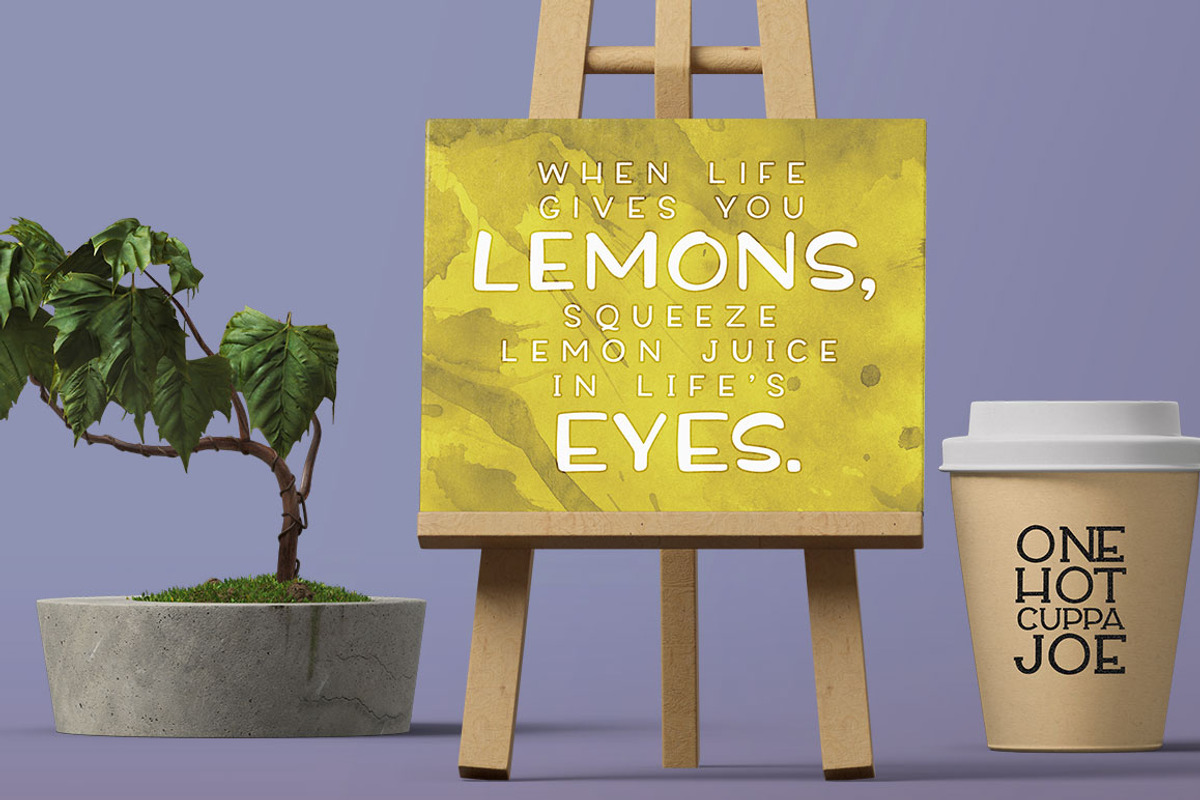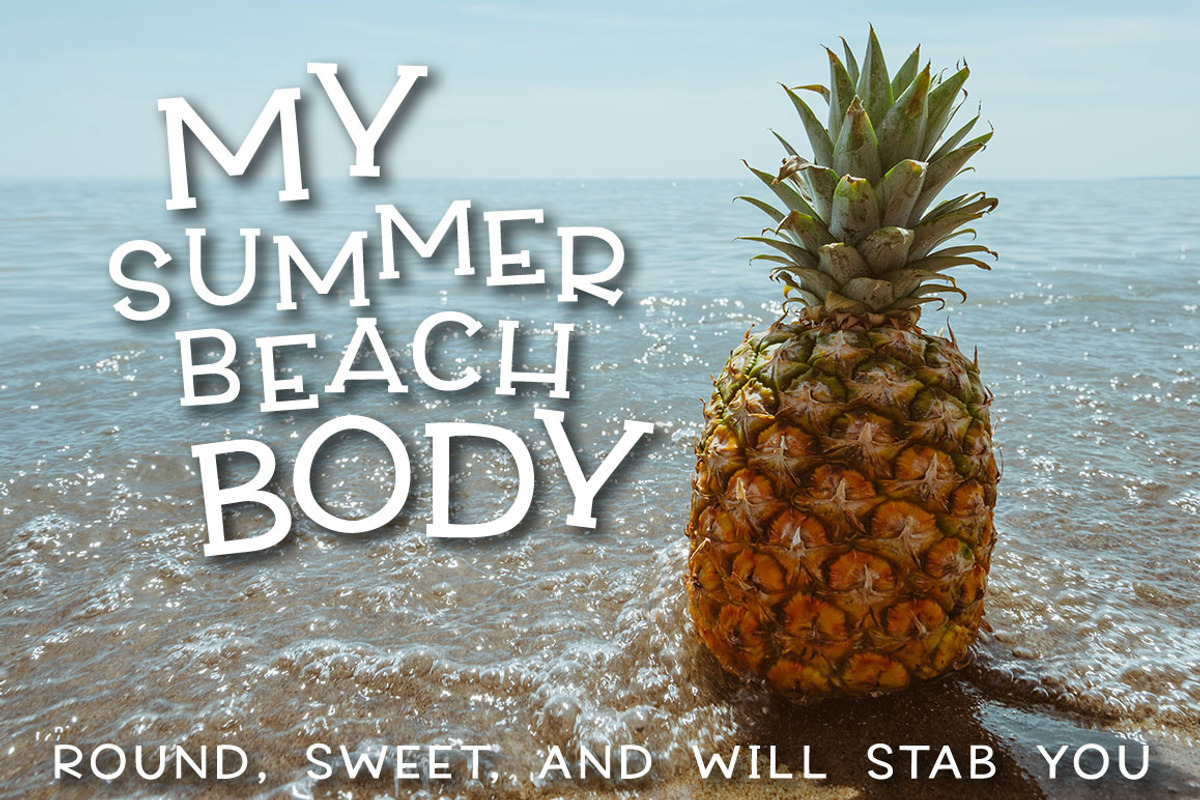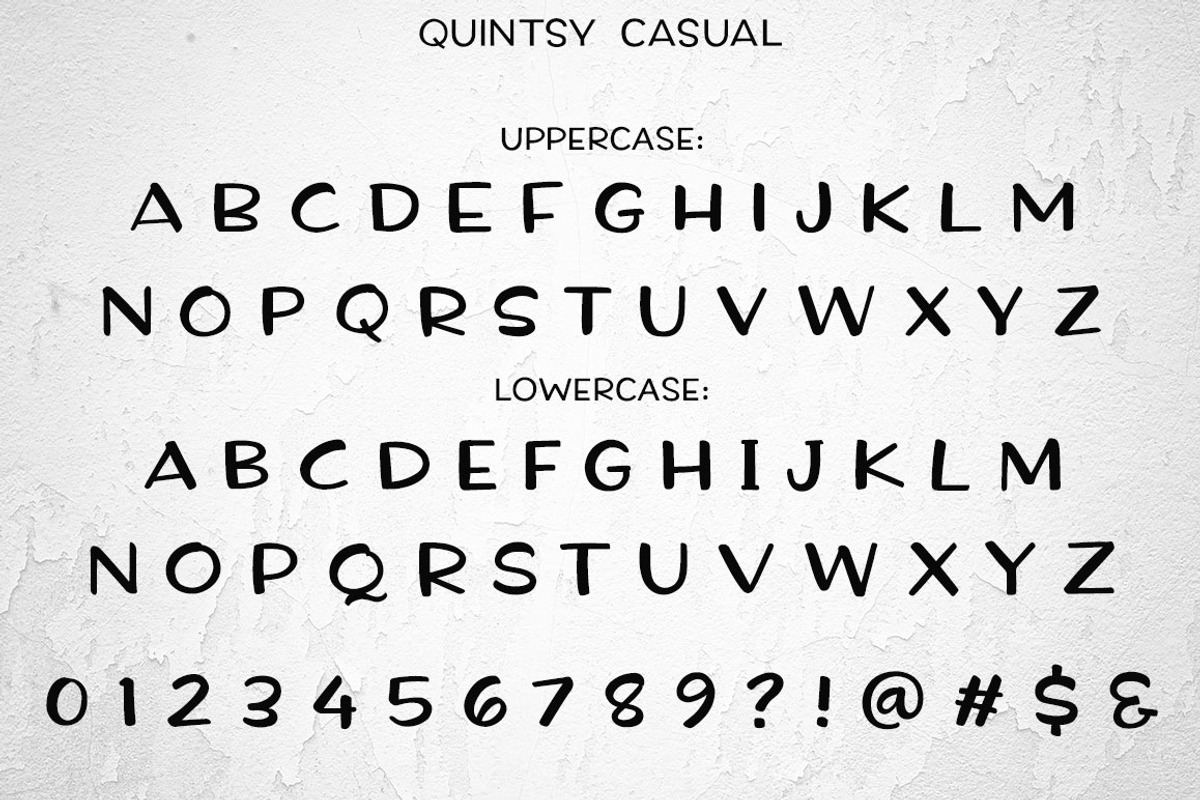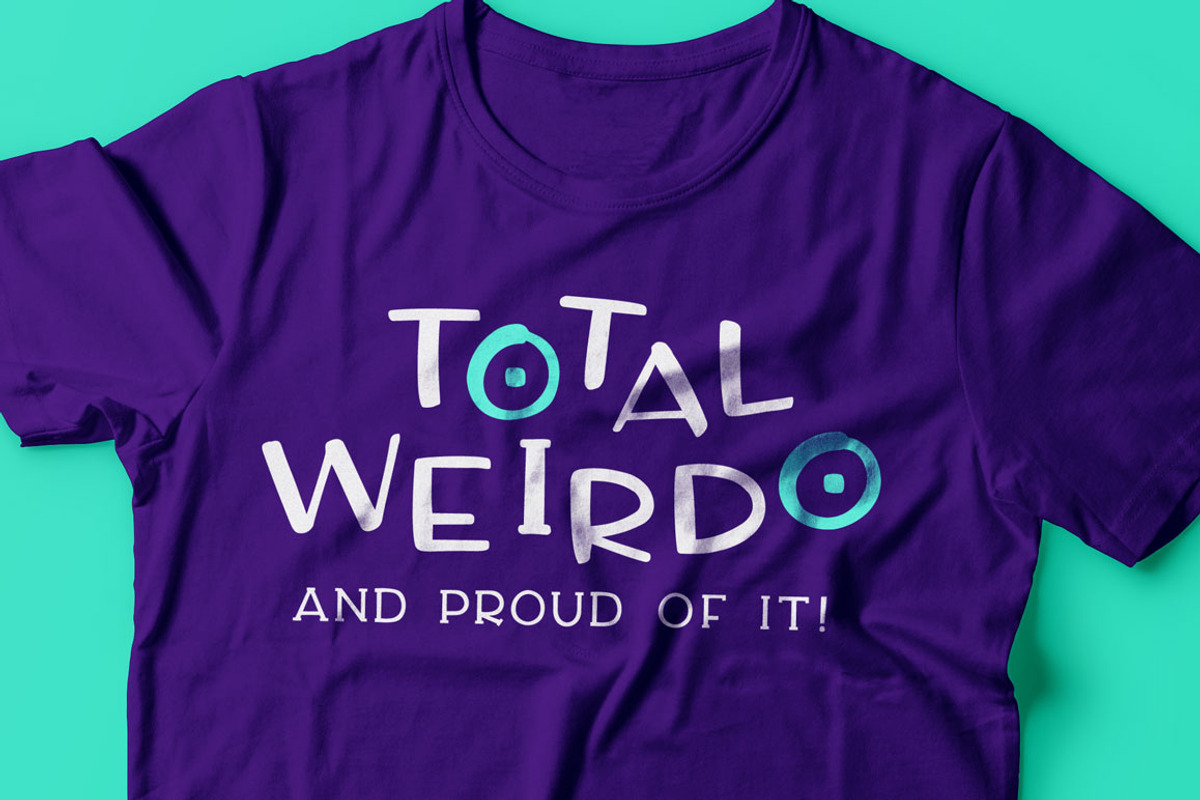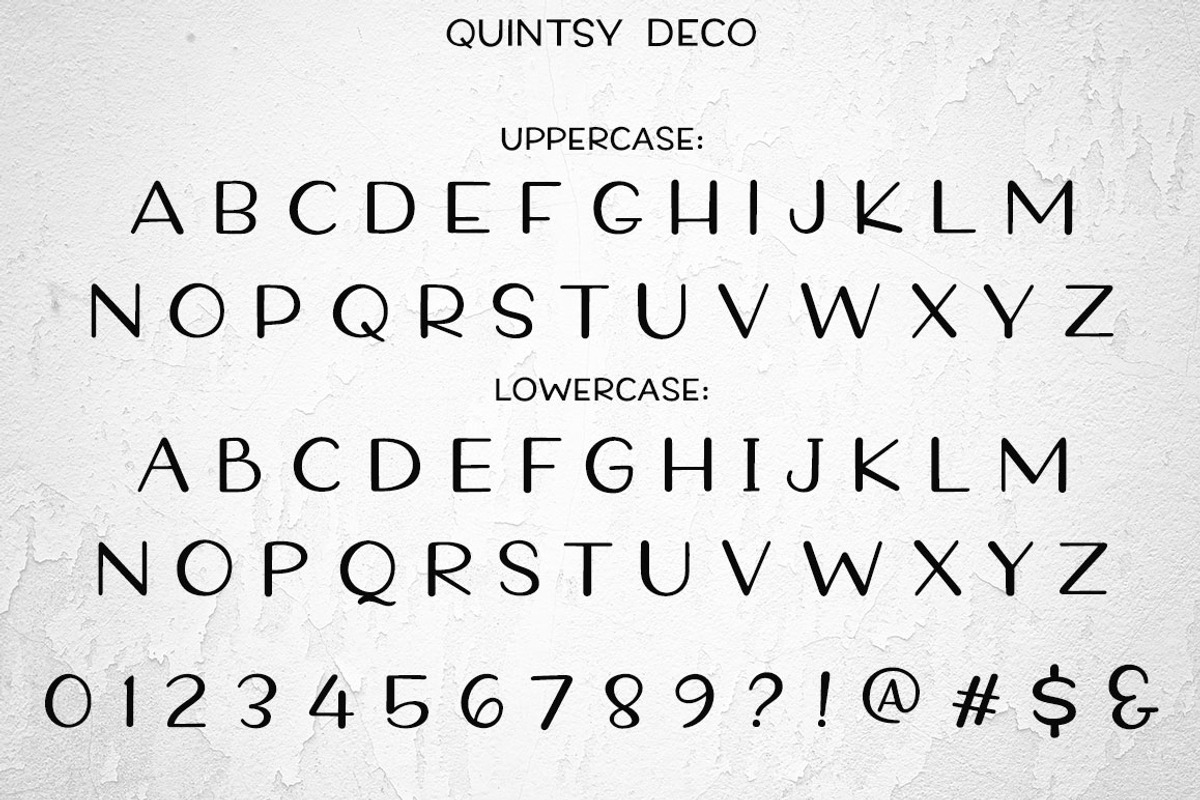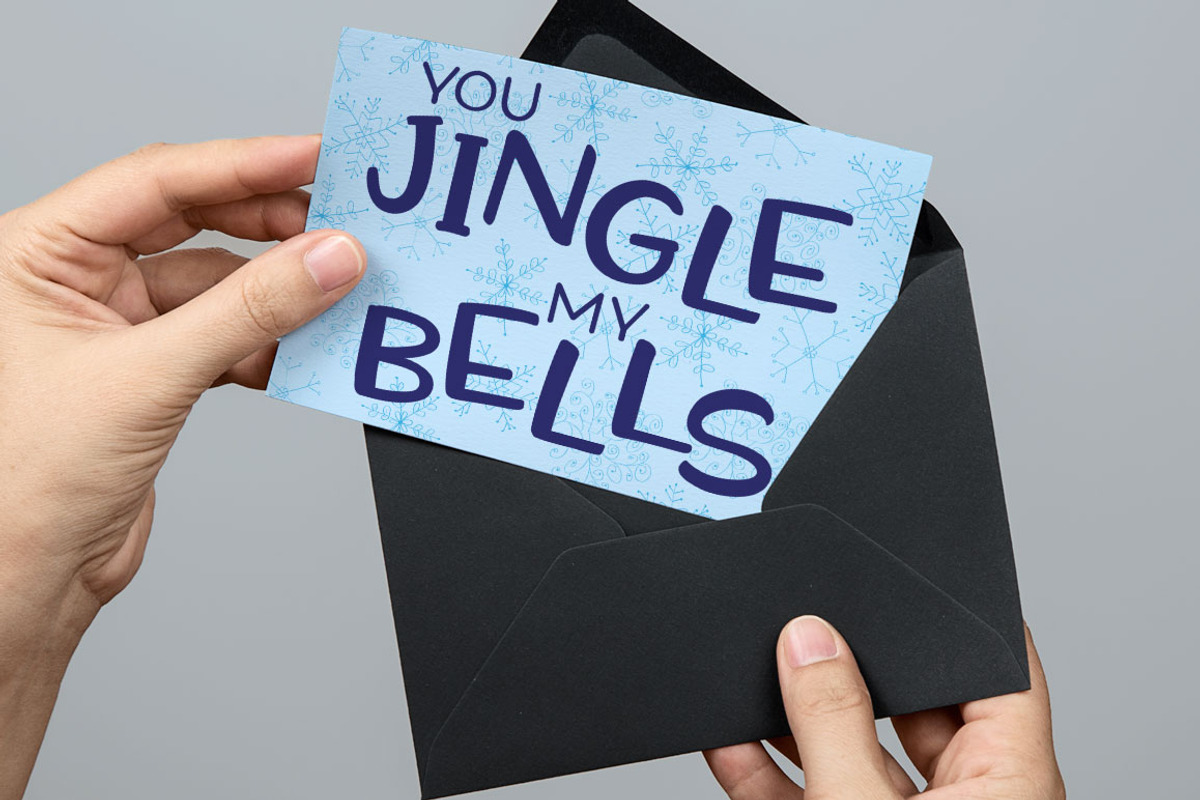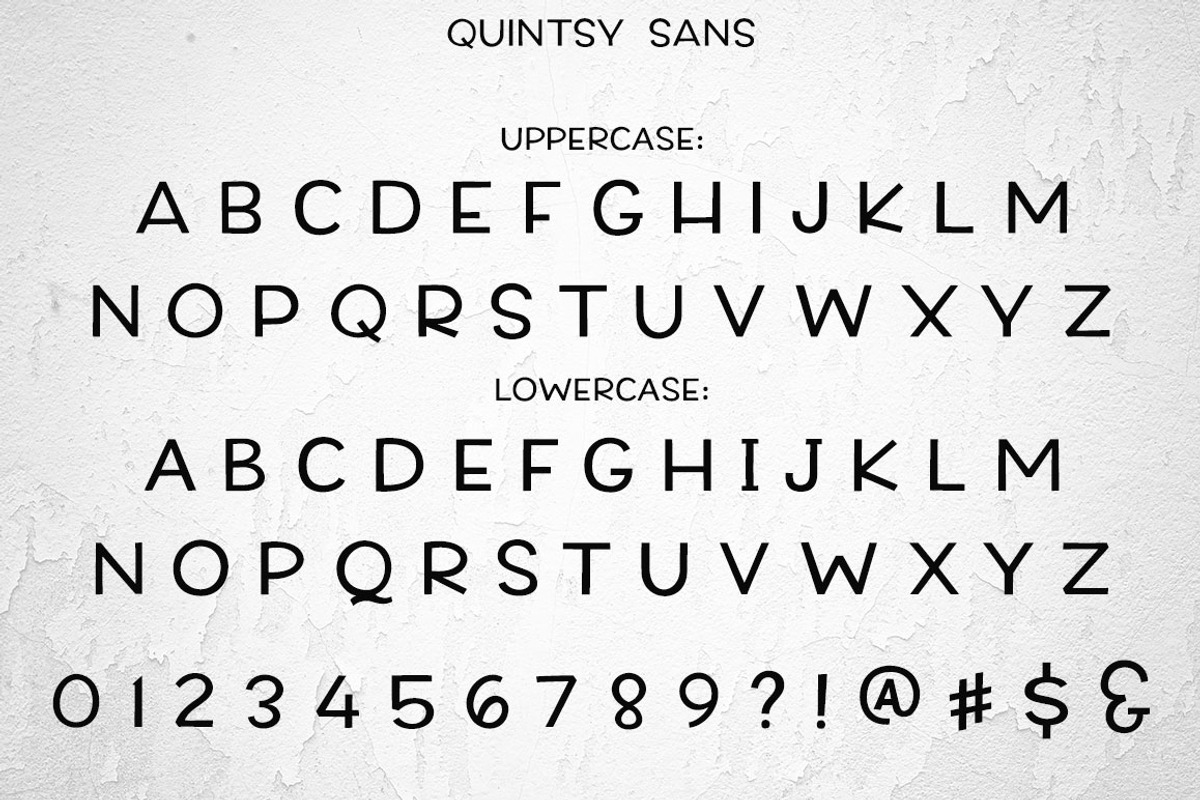
Quintsy - a five-font set!
Quintsy - a five-font set! by Missy Meyer is a font selected for branding, posters, packaging, typography.
- These five fonts are all made up of 100% uppercase letters, with different versions mapped to the uppercase and lowercase keyboard, so you h
Why Quintsy - a five-font set! is worth a look
Quintsy - a five-font set! by Missy Meyer fits naturally into Branding, posters, packaging, typography.